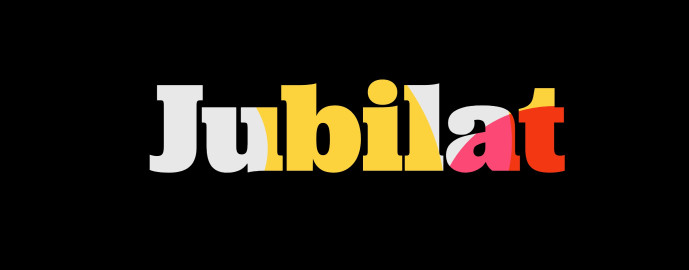
Jubilat Font Family
Designer: Darden Studio
Jubilat Font Family – Jubilat explores the history of the slab serif in six weights, with generous curves and efficient spacing in both dimensions. Its large lowercase and high contrast make it suitable for headlines, decks, and sidebars. Jubilat is our charter OpenType family, and employs three stylistic sets for hybrid, antique, and geometric alphabets. It also includes alternates, ligatures, case-appropriate punctuation, loose fractions, and broad language support. Developed with input from publication designers on four continents, Jubilat has also been field-tested in diverse circumstances, from dailies on newsprint in the Middle East to high-gloss fashion bibles in the subtropics.